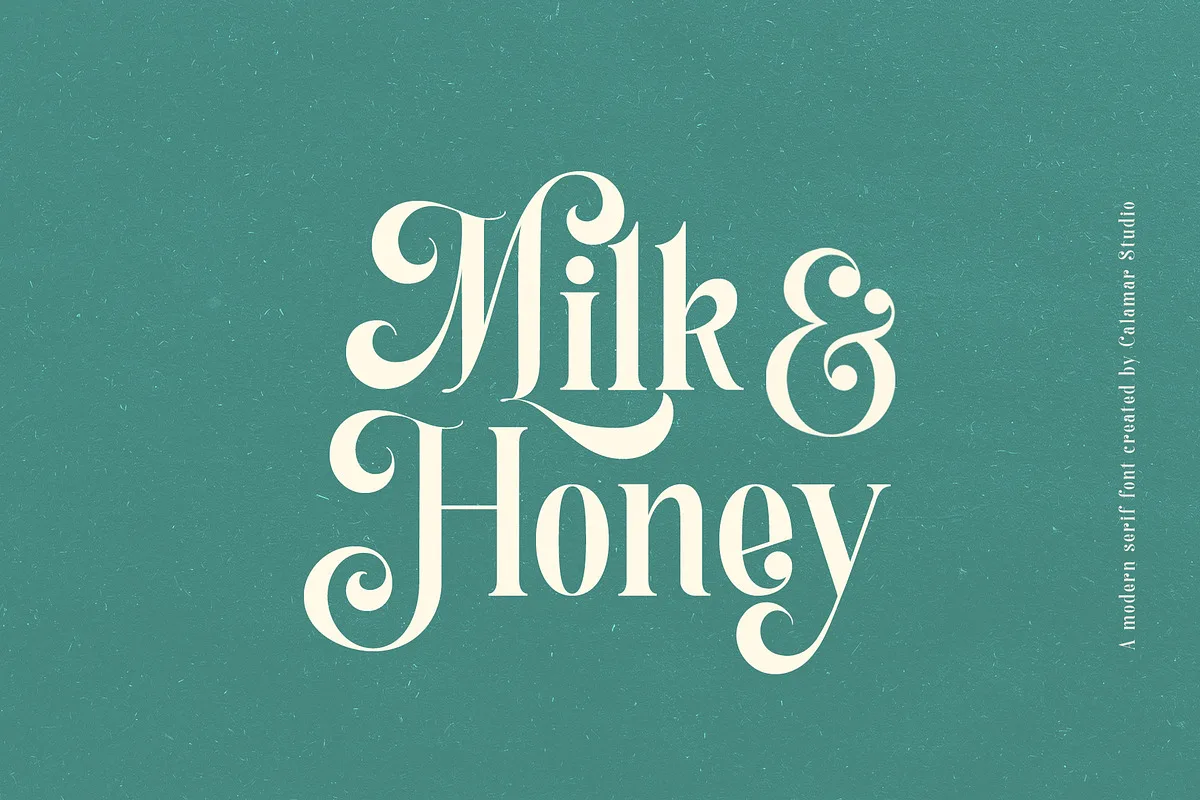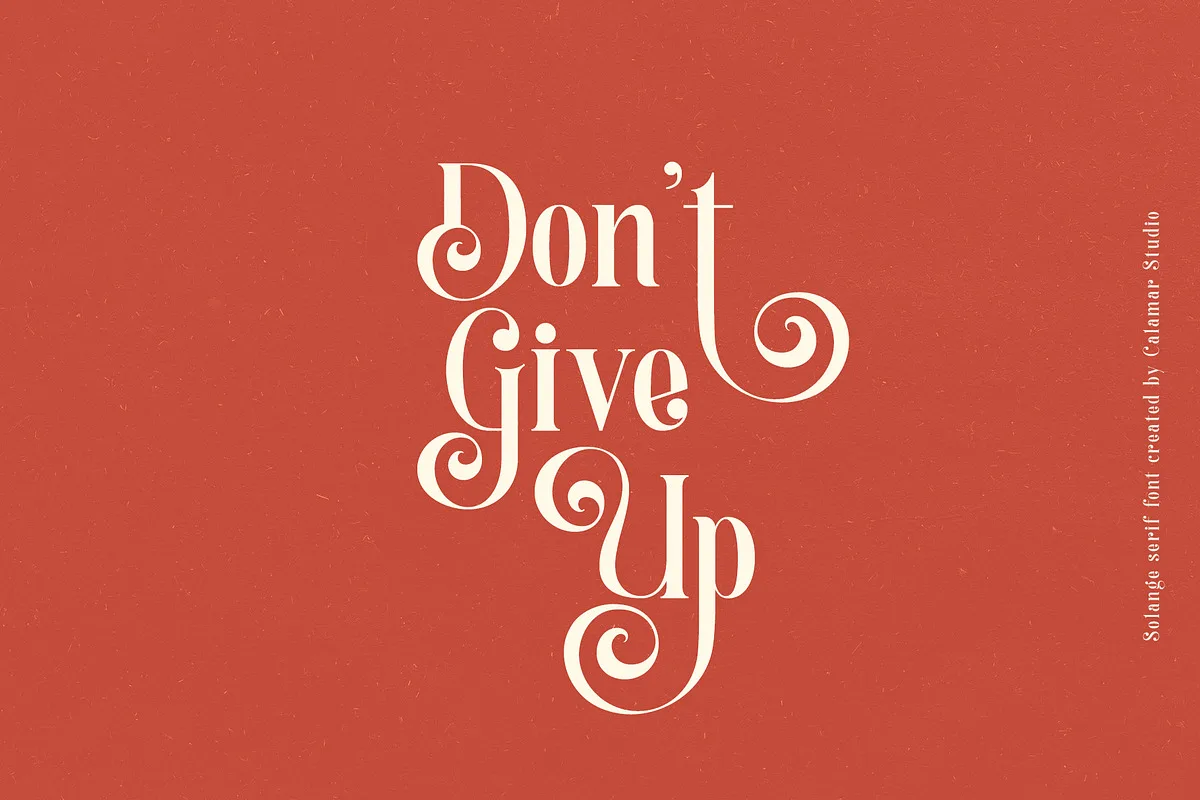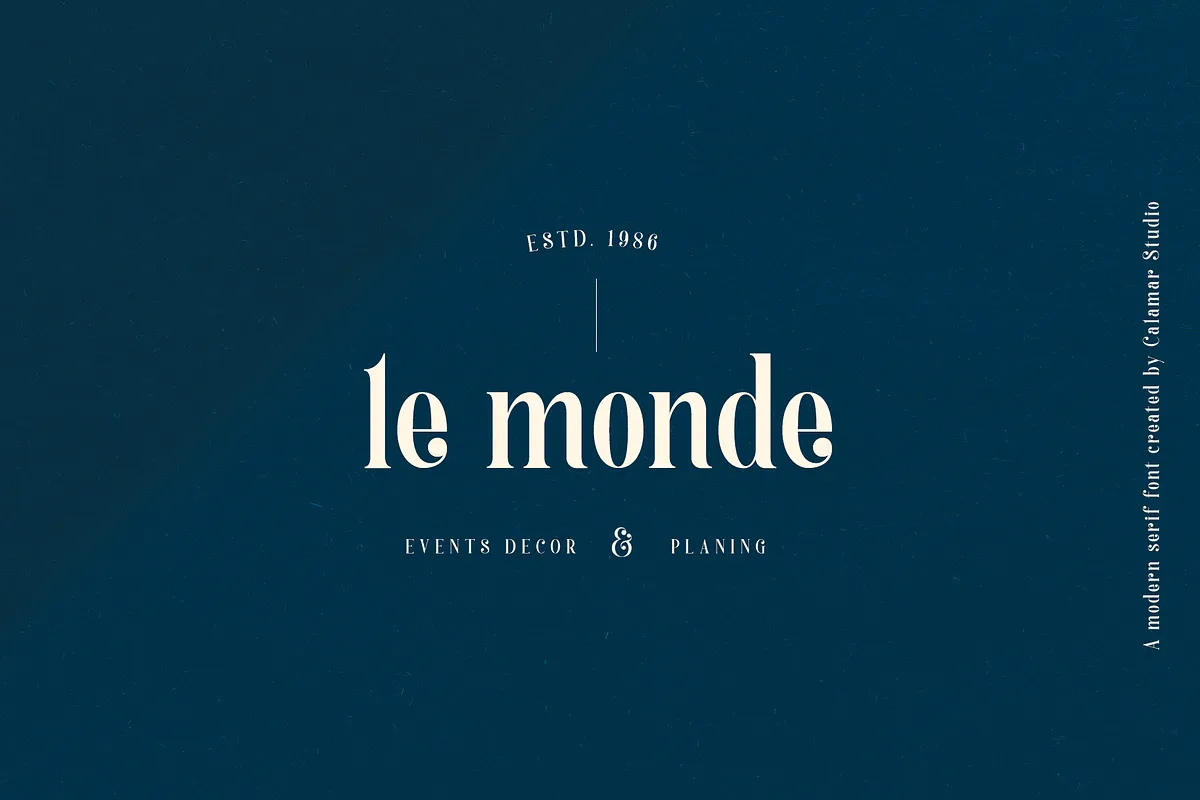
Melange Font
Melange is a new serif font inspired by the good old past, but it still has a strong modern appearance.
The font includes stylish alternate upper and lowercase characters. And that is why it’s perfect match for logotypes, branding, wedding monograms and invitations, blog headlines, posters and much more.
Melange Serif Font